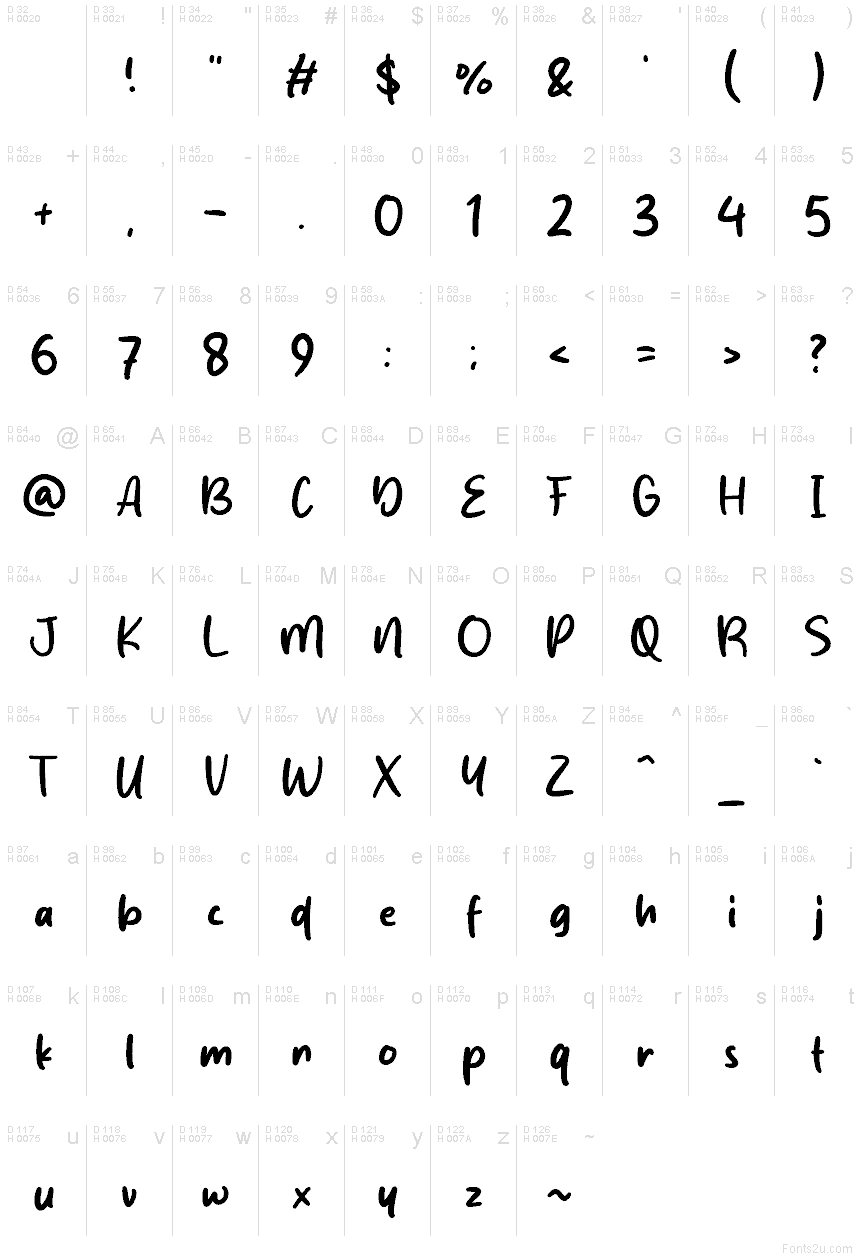
Simple Diary
Simple Diary font by MJType is a free handwritten font that embraces a casual and approachable style. Its modern vibe and friendly tone make it an inviting choice for projects seeking a personal touch.
Suitable for digital planners, logo designs, product labels, templates, postcards, apparel prints, invitations, and diaries where its warm nature will also be delivered.